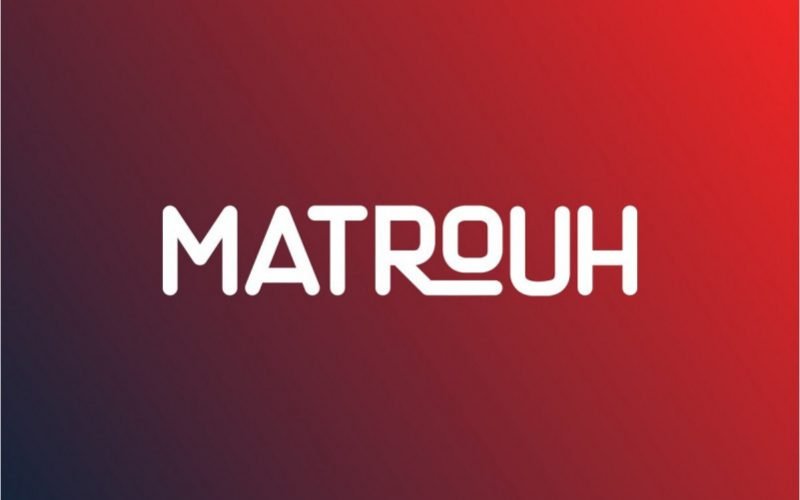
Matrouh Display Font
Matrouh Display Font is a fun display font. Create a unique design, every time you use it. Get inspired by its playful look & feel!